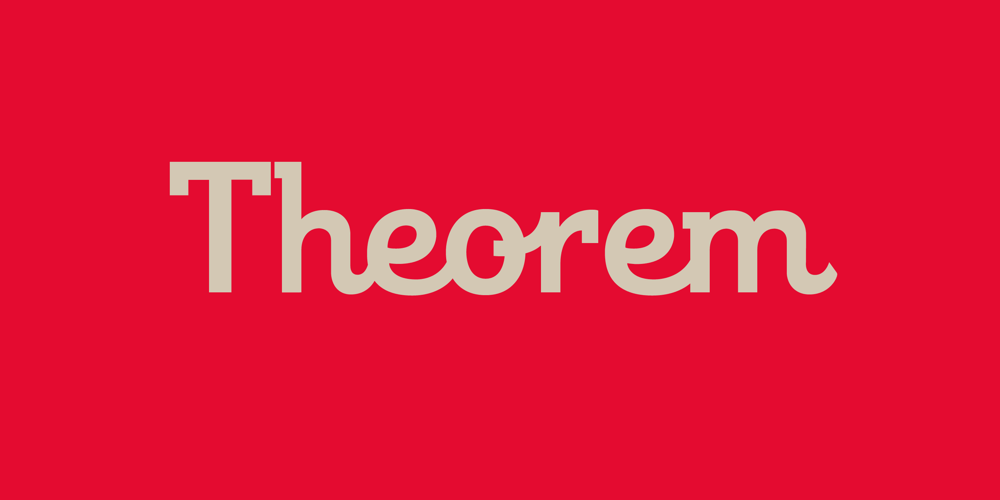
Theorem Font Family was designed by Alejandro Paul, Angel Koziupa and published by Sudtipos. Theorem contains 1 styles and family package options. Theorem is an interesting change from the usual calligraphic work of Koziupa and Paul. An art deco font with a 1990s twist in its capitals, Theorem’s lowercase characters were designed to automatically achieve the best optical spacing in typesetting. To accomplish that goal, a variety of alternates were drawn for most letters, and plenty of vowel-focused ligatures were designed. The automagic of OpenType ties it all together to make a very versatile typeface that is quite useful for packaging and many different applications of display typography.